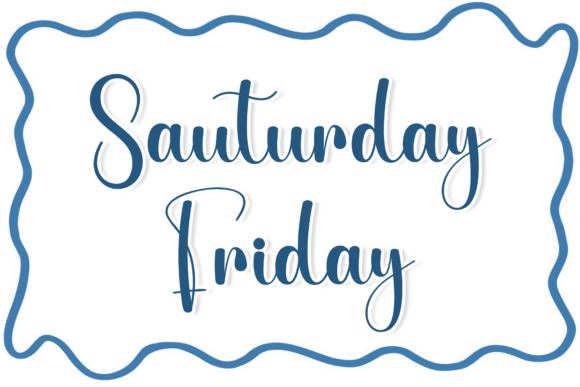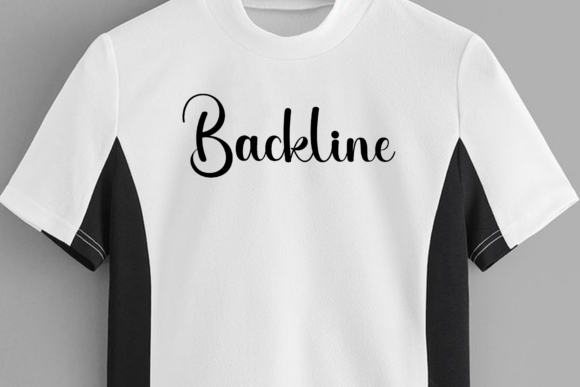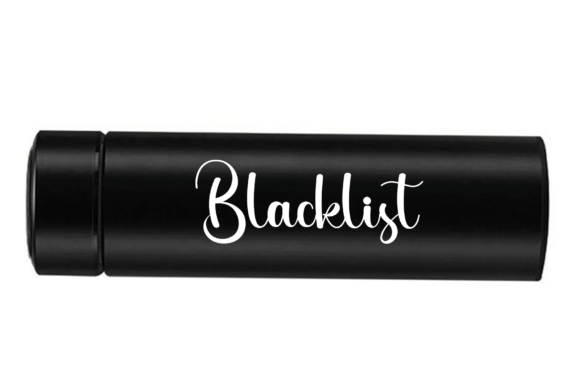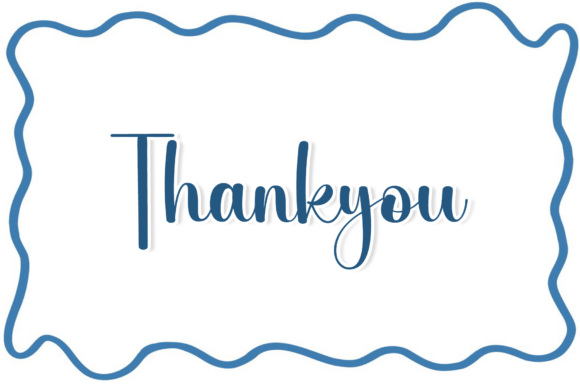
Arabian Font: Elevate Your Designs with Elegance and Whimsy
Are you on the hunt for a font that exudes sweetness, elegance, and a touch of romance? Look no further than the Arabian Font, a stunning, cursive handwritten font designed to bring a joyful and sophisticated flair to your projects. Whether you’re a designer, crafter, or DIY enthusiast, this versatile font is sure to become a favorite in your collection.
What Makes Arabian Font So Special?
Arabian Font is a beautiful, gentle script that boasts a unique blend of elegance and playfulness. Its cursive strokes are fluid and dynamic, making it perfect for a wide range of design applications. From branding and logos to wedding materials, greeting cards, and fashion designs, this font is guaranteed to add a touch of sophistication and whimsy to your work.
One of the standout features of Arabian Font is its incredible versatility. Its elegant, yet casual, demeanor makes it suitable for a diverse array of projects, including:
- Branding: Create a lasting impression with a custom logo or business card design that showcases the Arabian Font’s unique charm.
- Wedding Design:
- Greeting Cards: Add a personal touch to your cards and invitations with this beautiful, handwritten font.
- Fashion: Incorporate Arabian Font into your lookbooks, fashion magazines, or clothing labels for a stylish and high-end look.
- Marketing Promotion: Elevate your marketing materials, such as brochures, flyers, or social media graphics, with a touch of elegance and sophistication.
Why Choose Arabian Font?
With so many fonts available, why should you choose Arabian Font for your next project? Here are just a few compelling reasons:
- Elegant yet Casual: Arabian Font strikes the perfect balance between sophistication and playfulness, making it suitable for a wide range of design applications.
- Unique and Eye-Catching: This font’s distinctive cursive strokes and gentle flair ensure that your designs will stand out from the crowd.
- Easy to Read: Despite its elegant nature, Arabian Font remains highly legible, even at smaller sizes.
- Highly Versatile: Use Arabian Font across various design projects, from digital to print, without worrying about its adaptability.
Tips for Using Arabian Font Effectively
To get the most out of Arabian Font, consider the following tips:
- Pair with Contrasting Fonts: Combine Arabian Font with a clean, sans-serif font to create visual interest and hierarchy in your designs.
- Experiment with Colors: Try pairing Arabian Font with a range of colors to find the perfect match for your brand or design.
- Play with Size and Scale: Don’t be afraid to experiment with different font sizes to create emphasis and add visual interest to your designs.